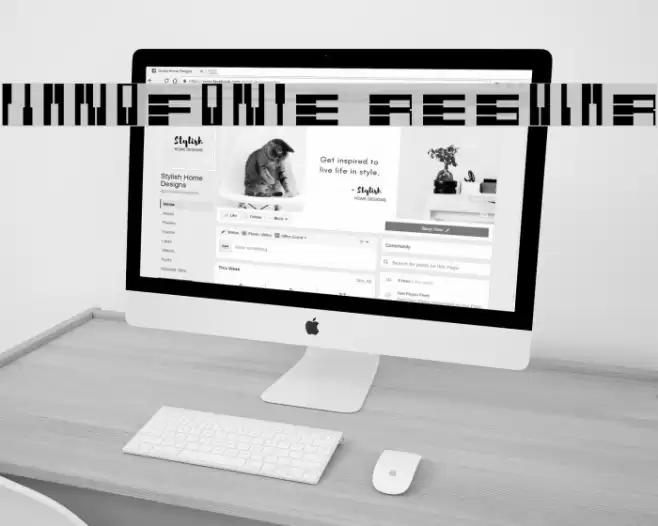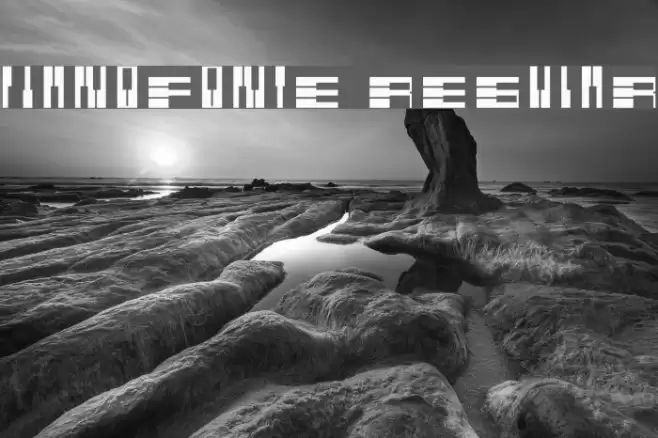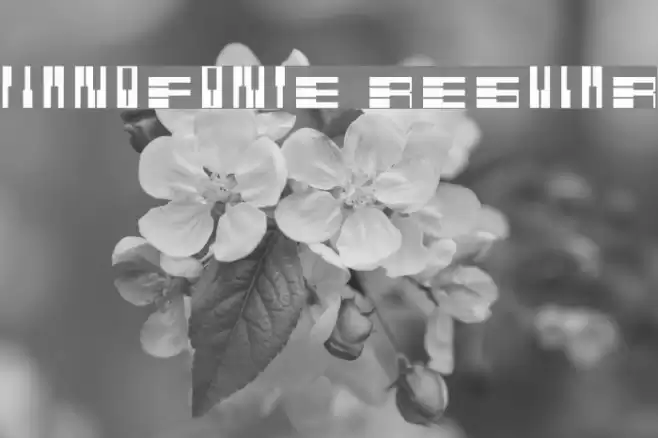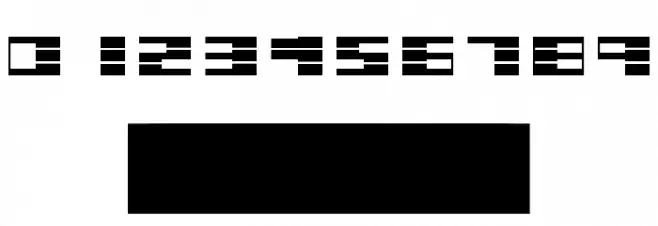
PianoFonte Regular Font
PianoFonte Regular Description
This font features a unique, modern design with a distinct blocky and segmented appearance. Each character is composed of horizontal and vertical lines that create a digital, futuristic aesthetic. The uppercase and lowercase letters maintain a consistent style, with a strong geometric influence that gives the font a structured and mechanical feel. The numbers and special characters follow the same design principles, ensuring uniformity across all glyphs. This font's bold and striking look makes it ideal for projects that require a contemporary and tech-savvy vibe.
A modern, blocky font with a digital, futuristic aesthetic from Decorative fonts.